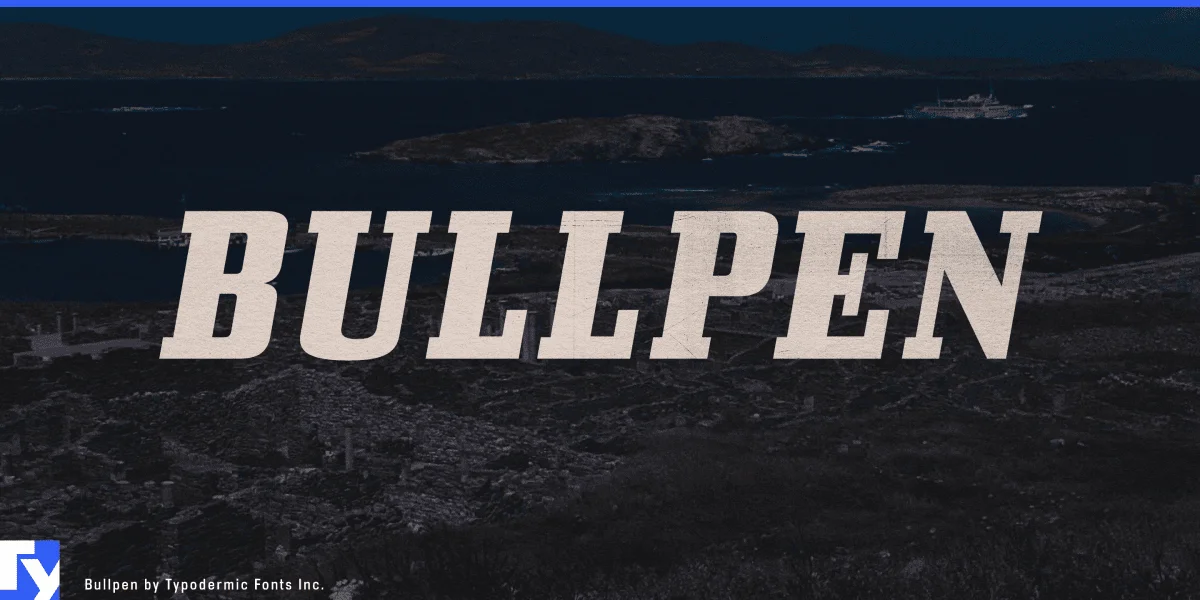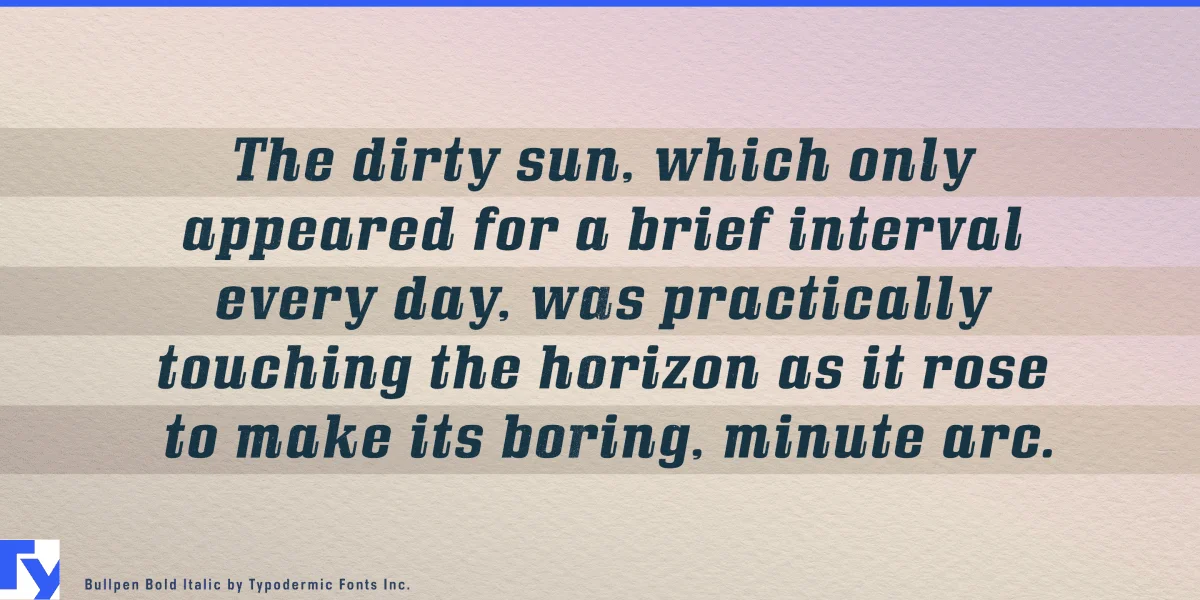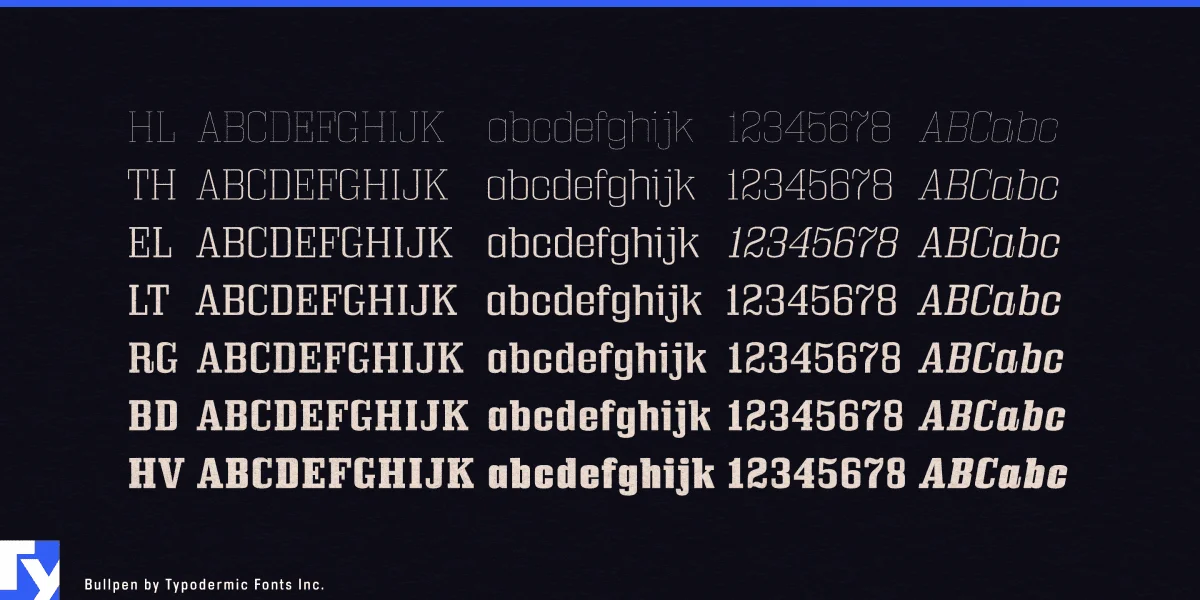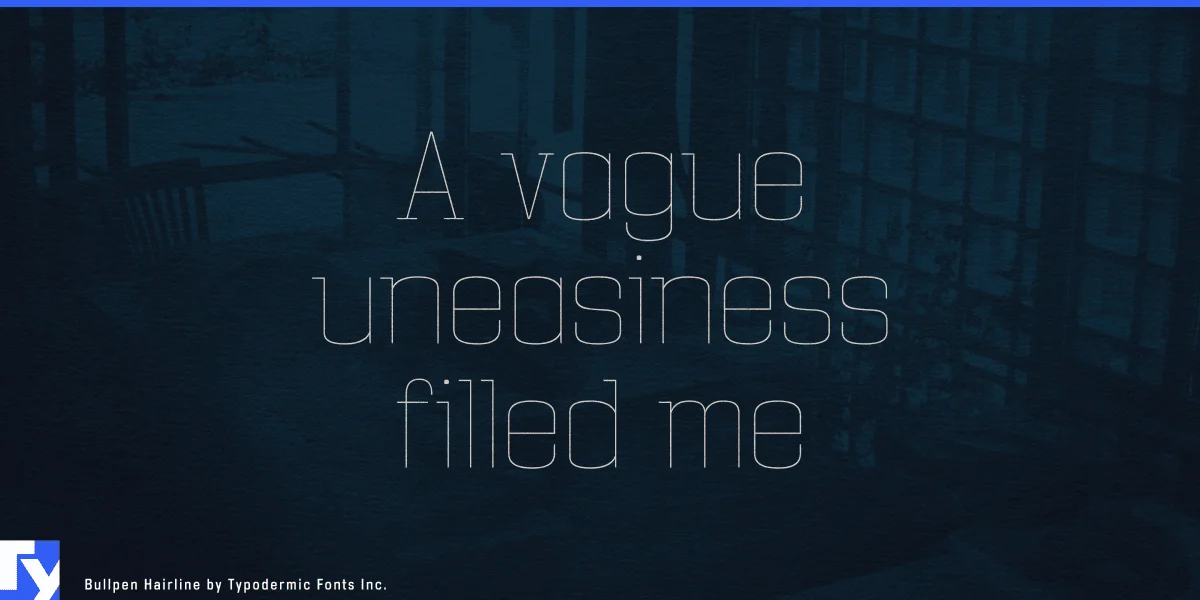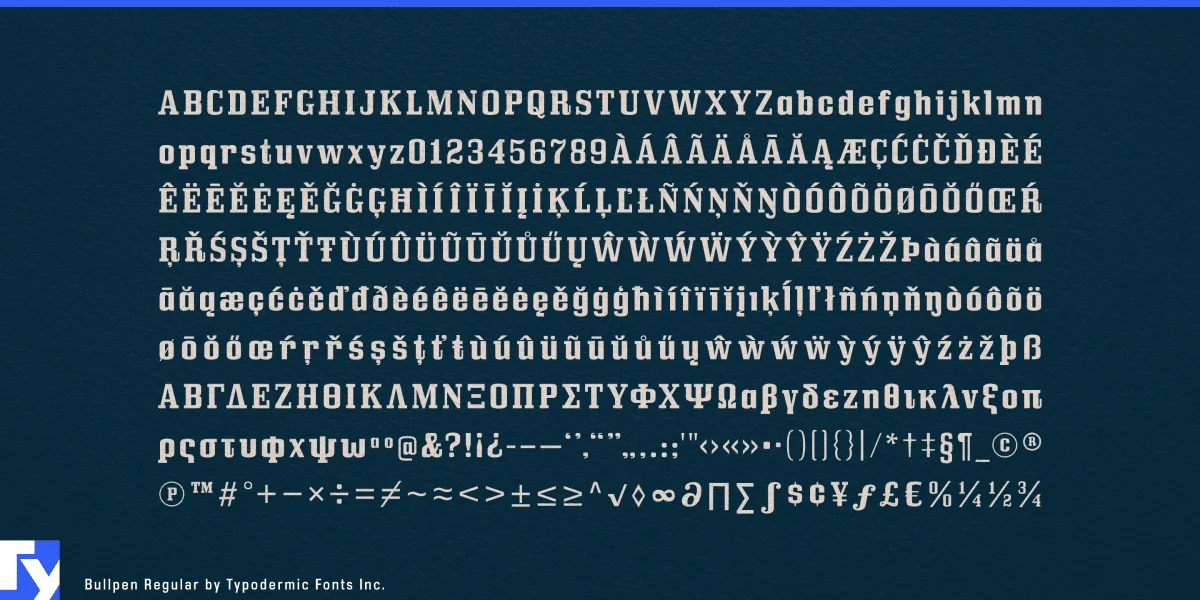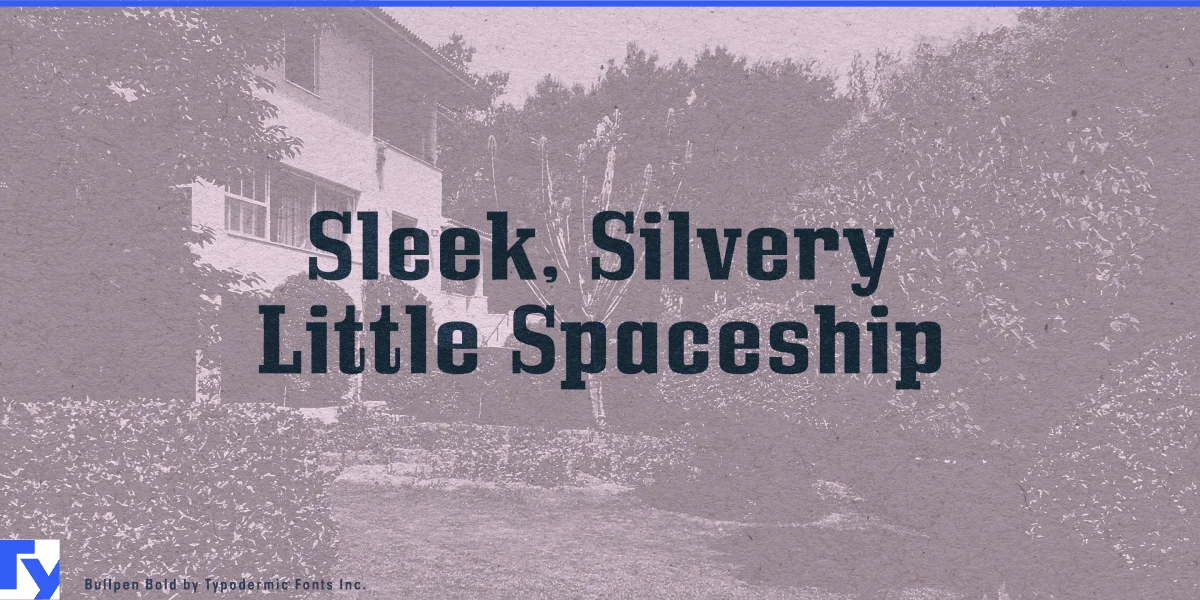
Bullpen stands as a paragon of typographic strength, its mechanical curves and unyielding serifs crafted for those who refuse to go unnoticed. This robust font family, with its seven weights and matching italics, offers a spectrum of voices from authoritative whisper to thunderous declaration. The unique 3D style adds depth, catapulting your designs into a realm of visual intrigue that demands attention.
In the arena of design, where first impressions are paramount, Bullpen enters as a formidable contender. Its presence commands respect whether emblazoned across stadium banners, etched into industrial packaging, or standing tall on attention-grabbing billboards. Yet, this typeface doesn’t sacrifice sophistication for strength—its carefully crafted forms bring refinement to raw power, making it equally suited for corporate identities and editorial headlines.
Bullpen’s character set embraces a wide array of Latin-based European writing systems, ensuring your bold statements resonate across linguistic borders. From the rugged coastlines of Scotland to the sun-drenched plains of Spain, this typeface articulates your message with unwavering clarity.
Choose Bullpen when you need typography that doesn’t just speak, but roars. It’s more than a font—it’s a declaration of intent, a visual voice that embodies resilience and the audacity to stand firm. With Bullpen, your words don’t just occupy space—they own it, leaving an indelible mark on all who encounter them.